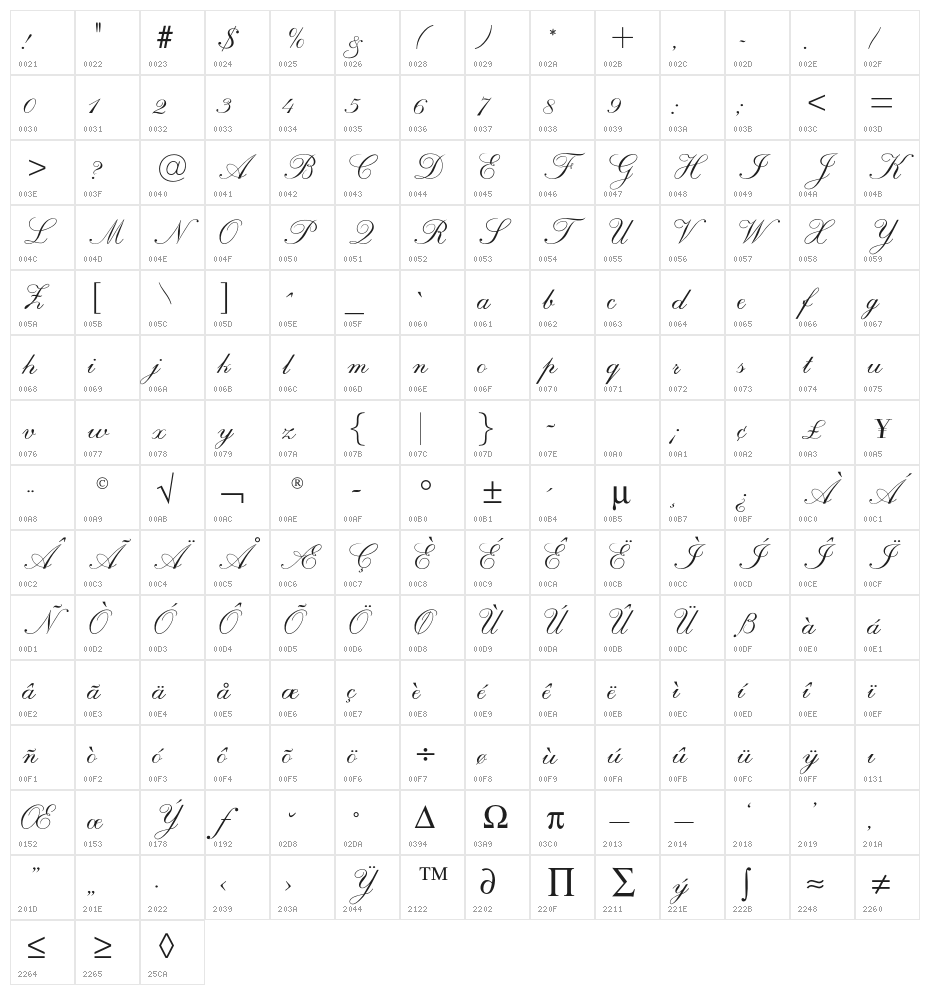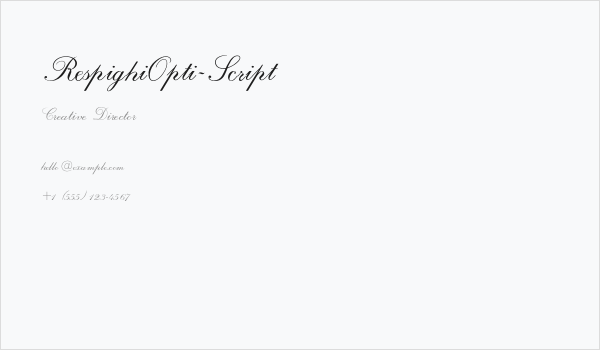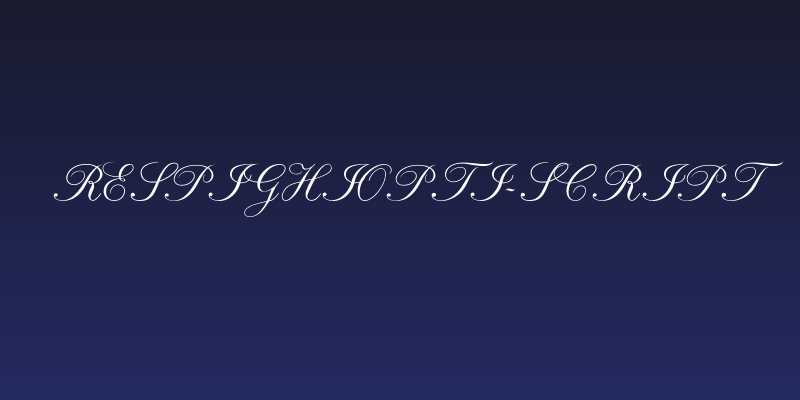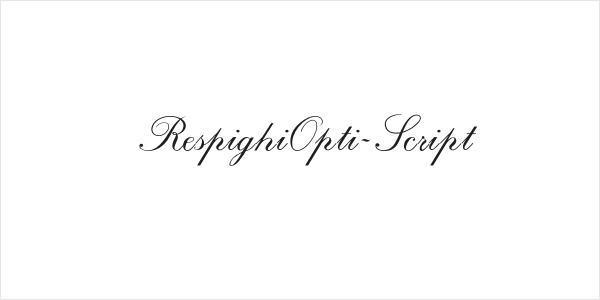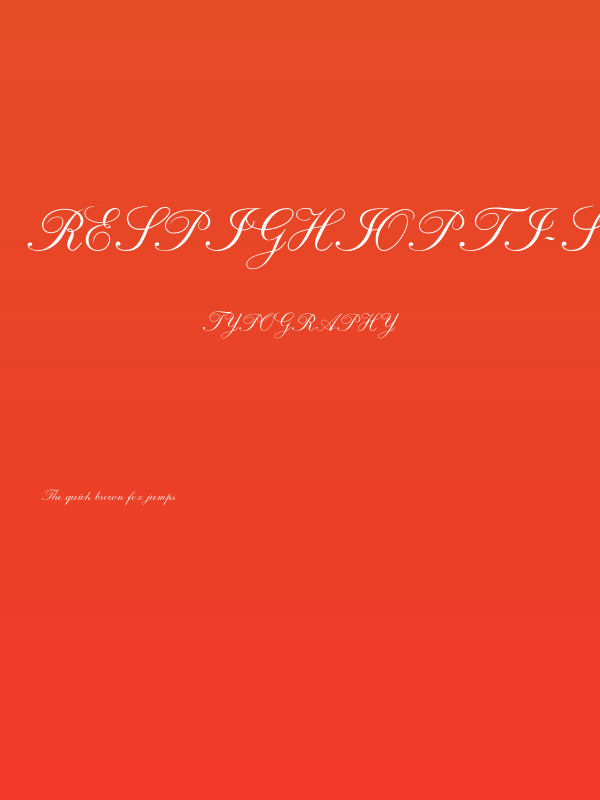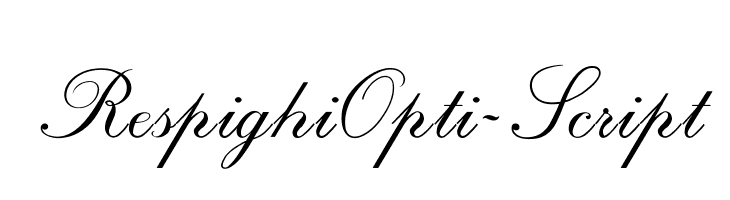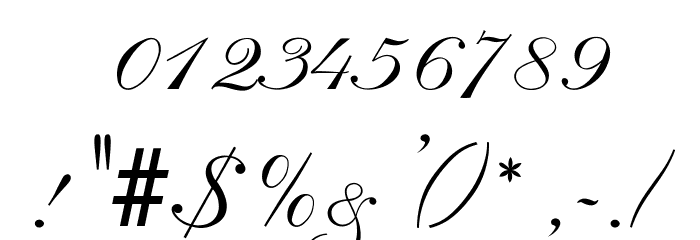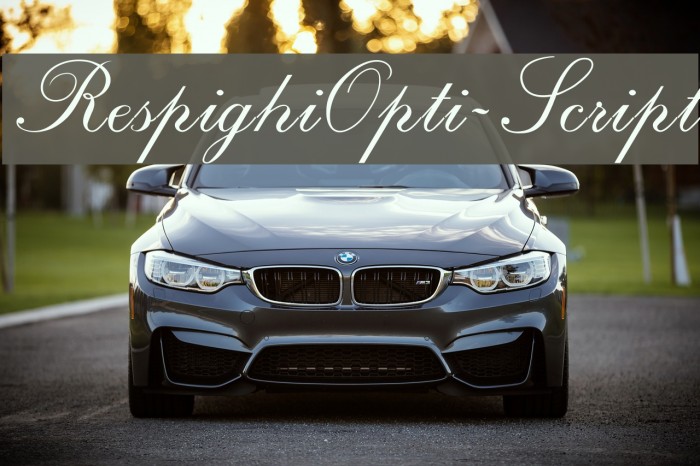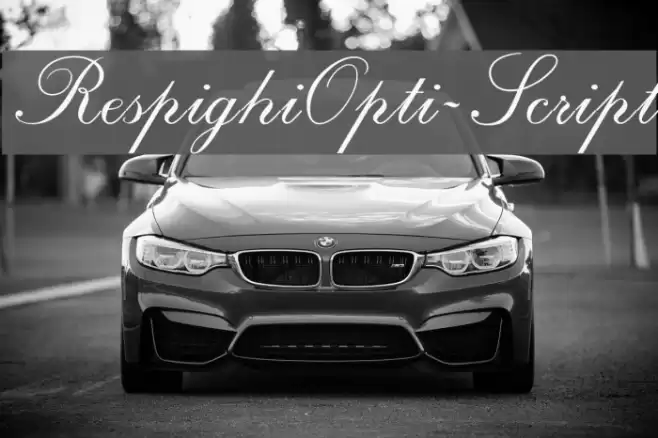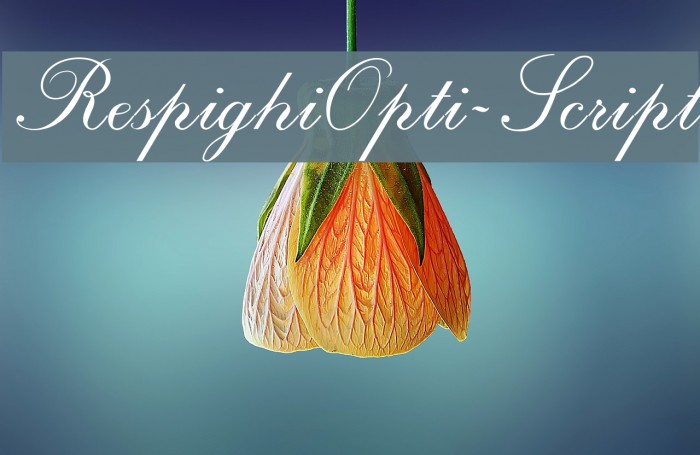
RespighiOpti-Script Font
RespighiOpti-Script Description
This elegant script font features flowing, cursive letterforms that exude a sense of sophistication and grace. The uppercase letters are intricately designed with delicate curves and flourishes, while the lowercase letters maintain a smooth, connected style that enhances readability. The numerals are consistent with the script style, offering a cohesive look across all characters. Special characters are thoughtfully integrated, maintaining the font's overall aesthetic. This font is ideal for projects that require a touch of elegance and refinement.
| Overall Style | Elegant, Sophisticated |
| Use Case | Headlines, Invitations, Branding |
| Proposed Projects | Ideal for wedding invitations, formal event programs, elegant branding, and luxury product packaging. |